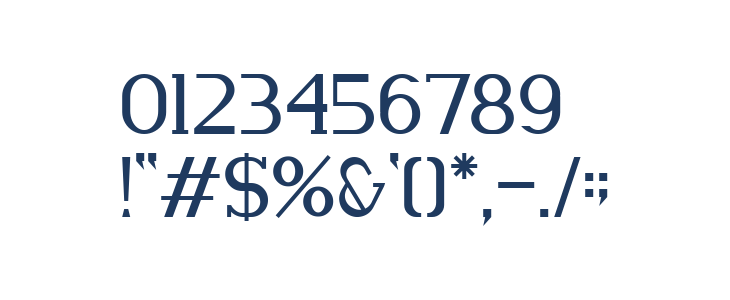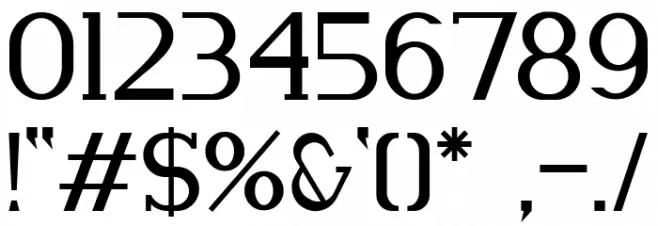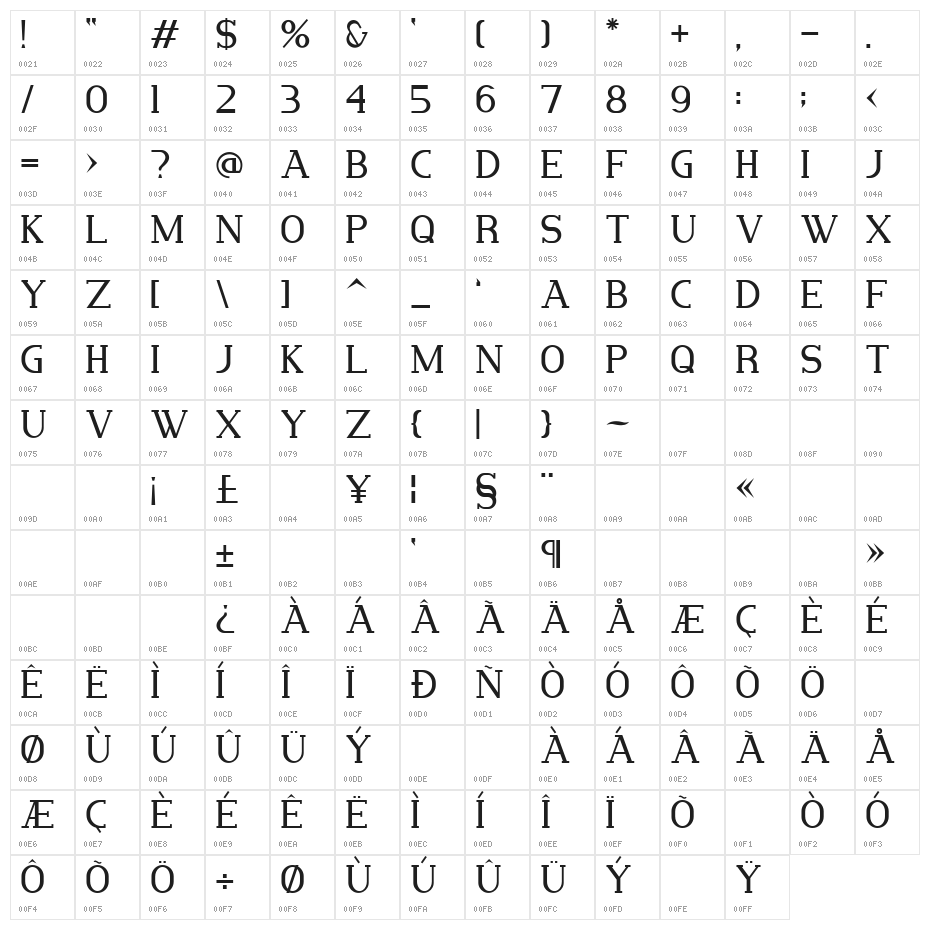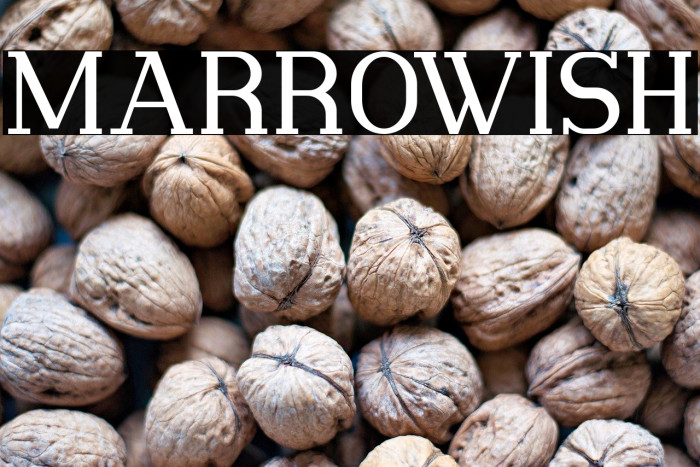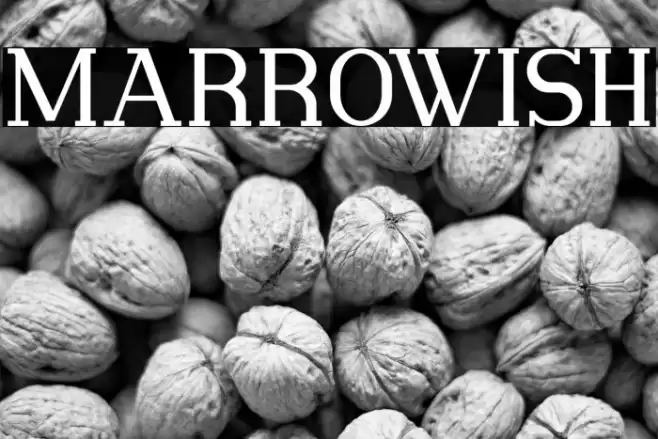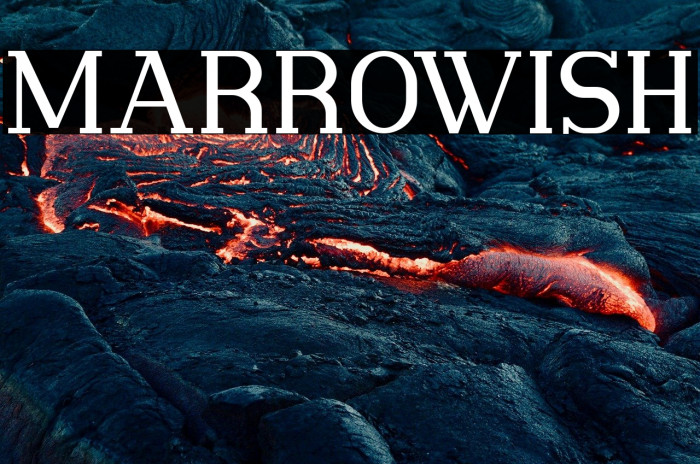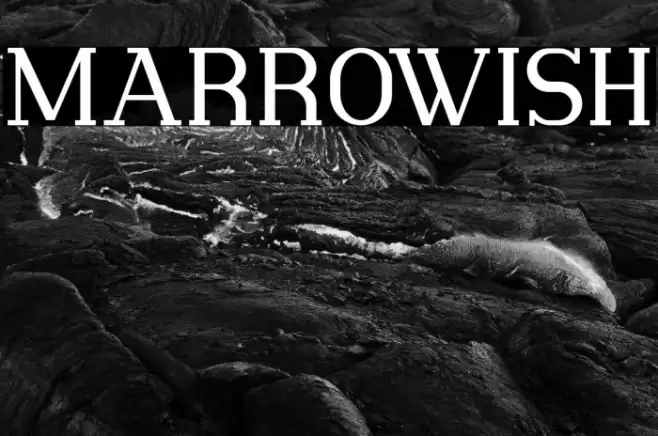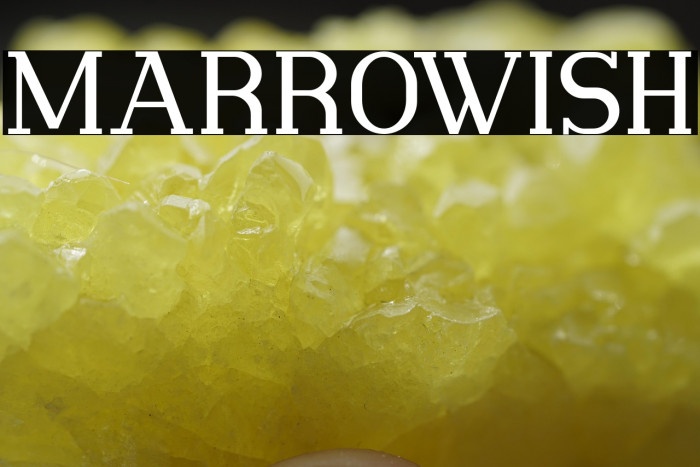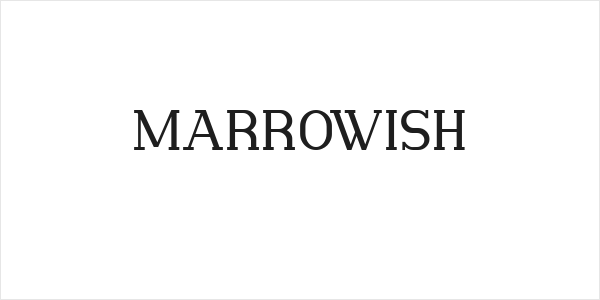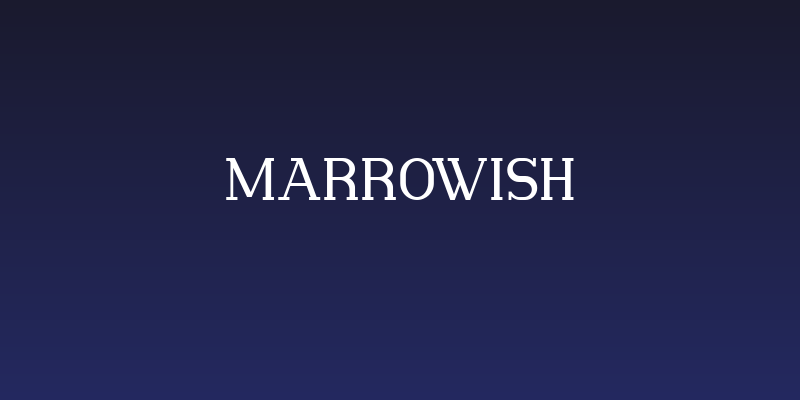
Marrowish Font
Marrowish Description
This font exhibits a classic serif style with a modern twist, characterized by its clean lines and balanced proportions. The uppercase letters are bold and commanding, while the lowercase letters maintain a refined elegance. The numerals are distinct and easy to read, making them suitable for various applications. Special characters are well-defined, adding versatility to the font's use. The overall design is both timeless and contemporary, making it a great choice for projects that require a touch of sophistication.
| Proposed Projects | Ideal for editorial design, book covers, branding, and formal invitations. |